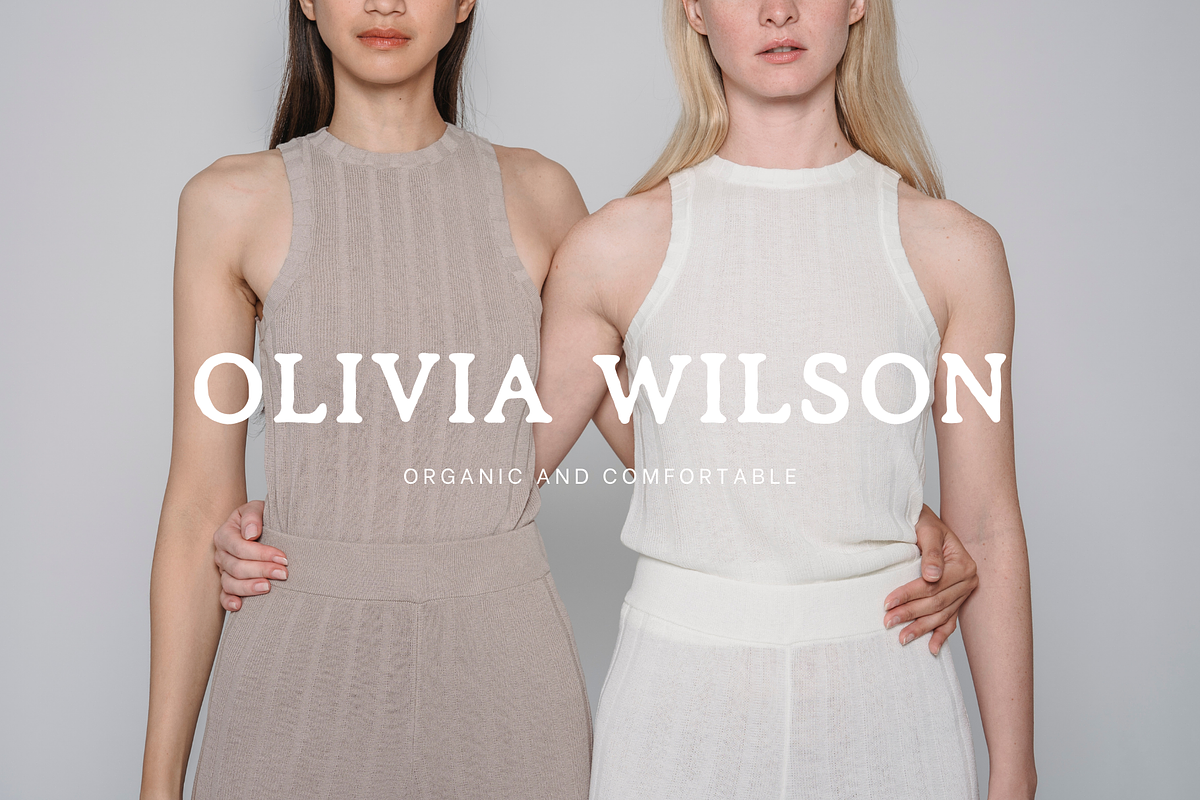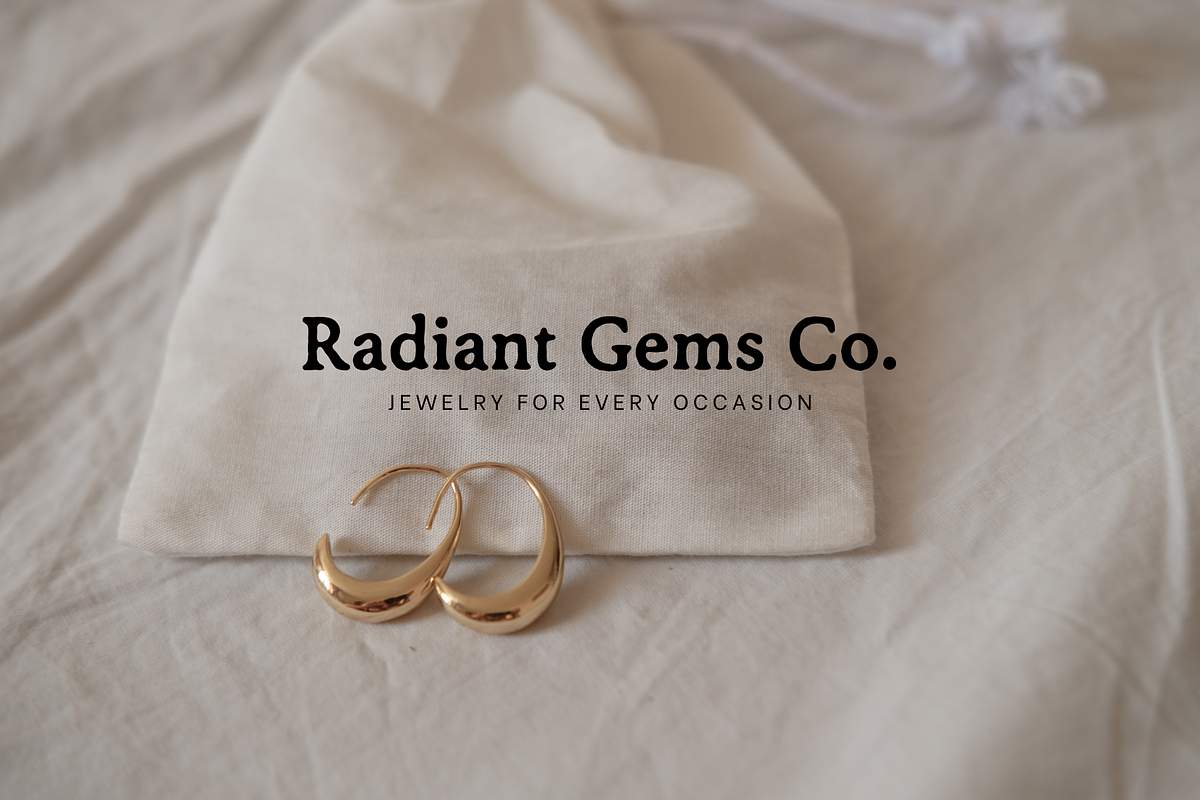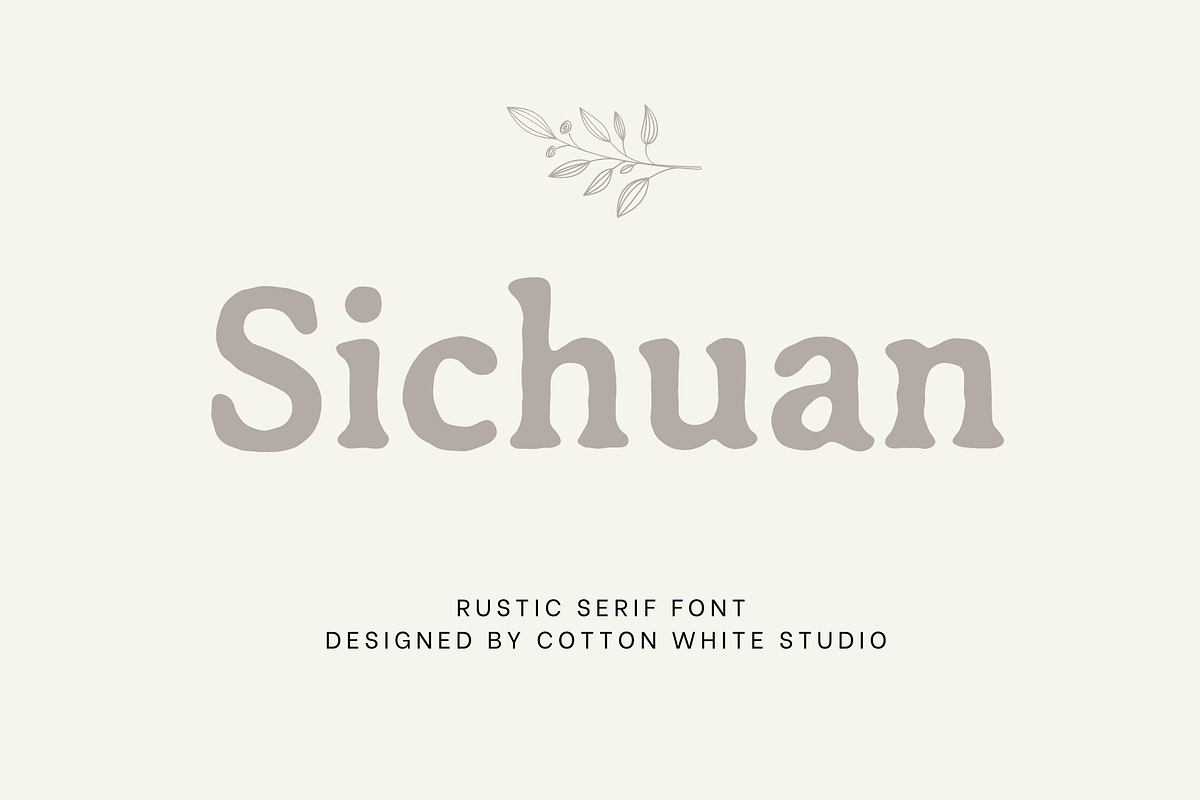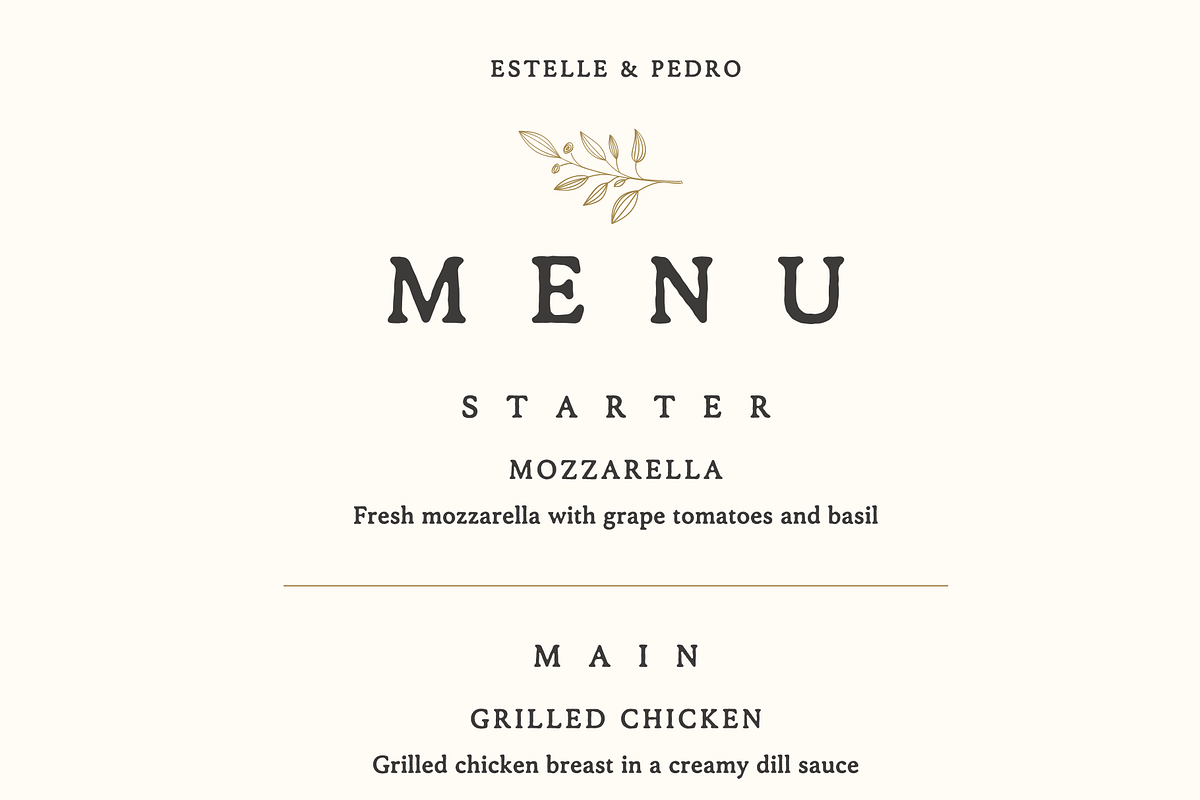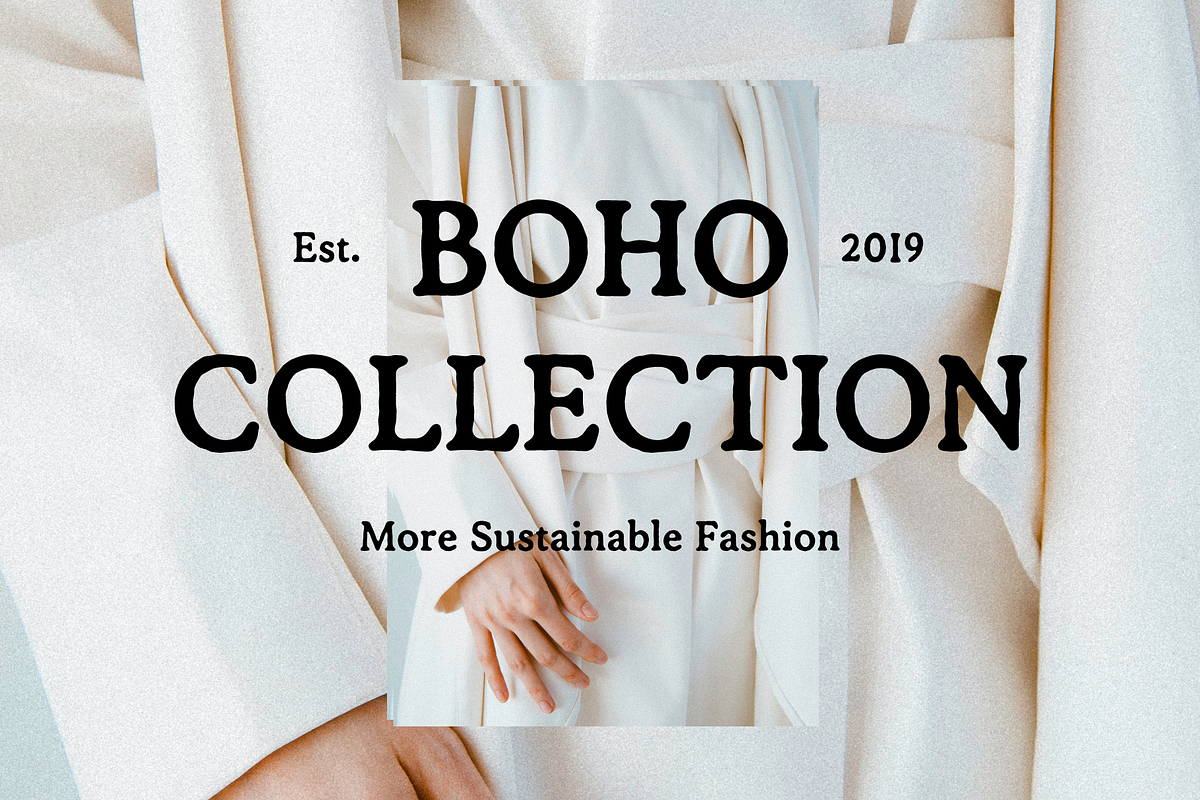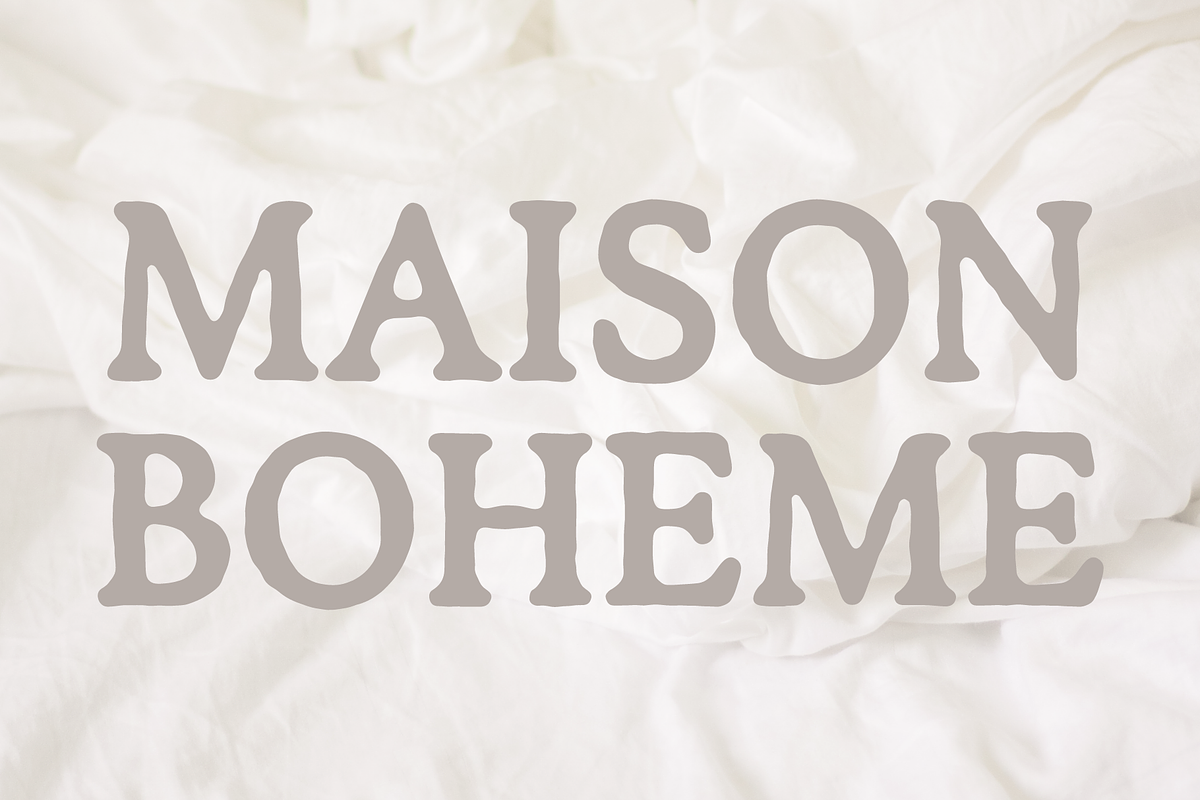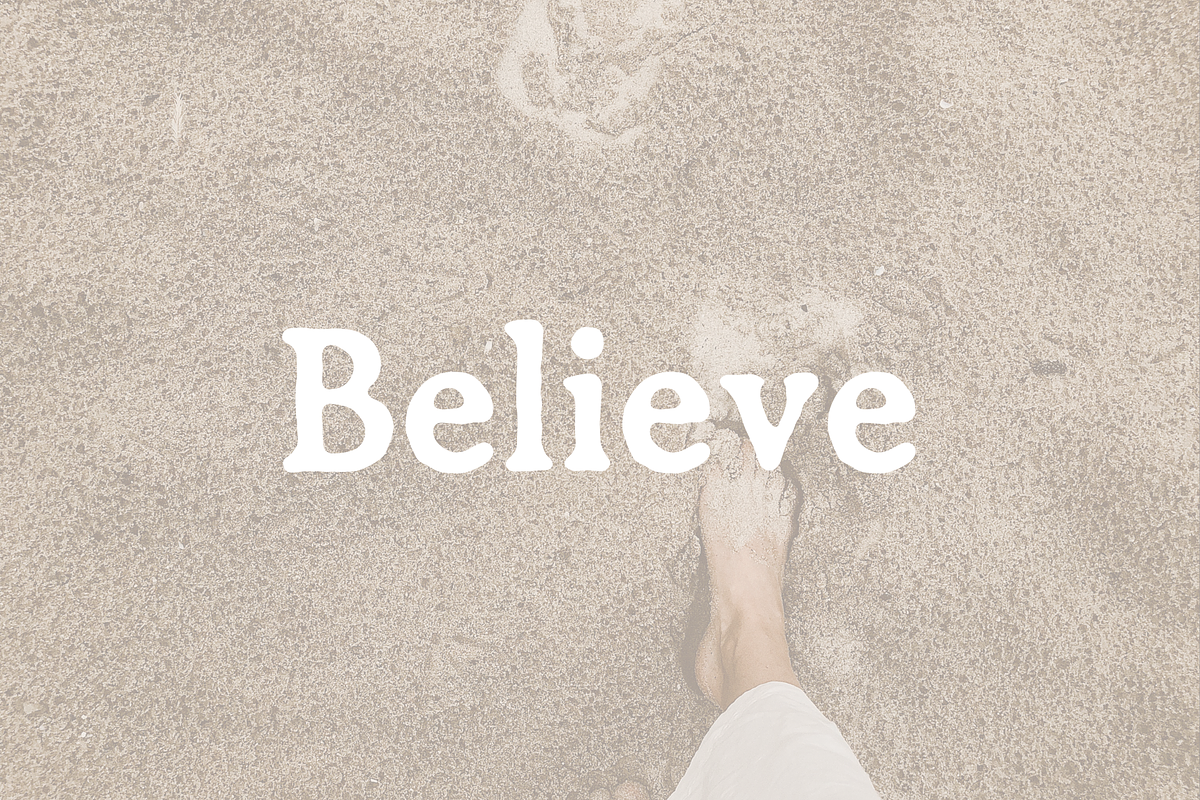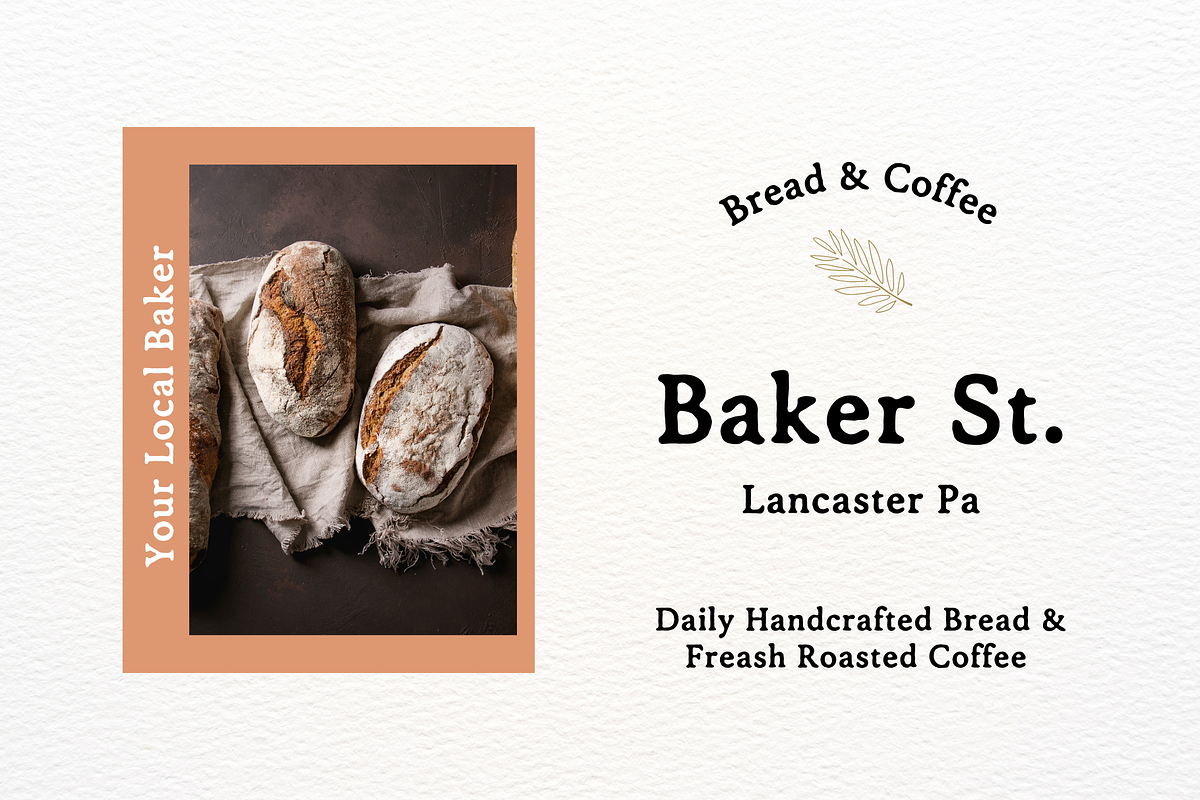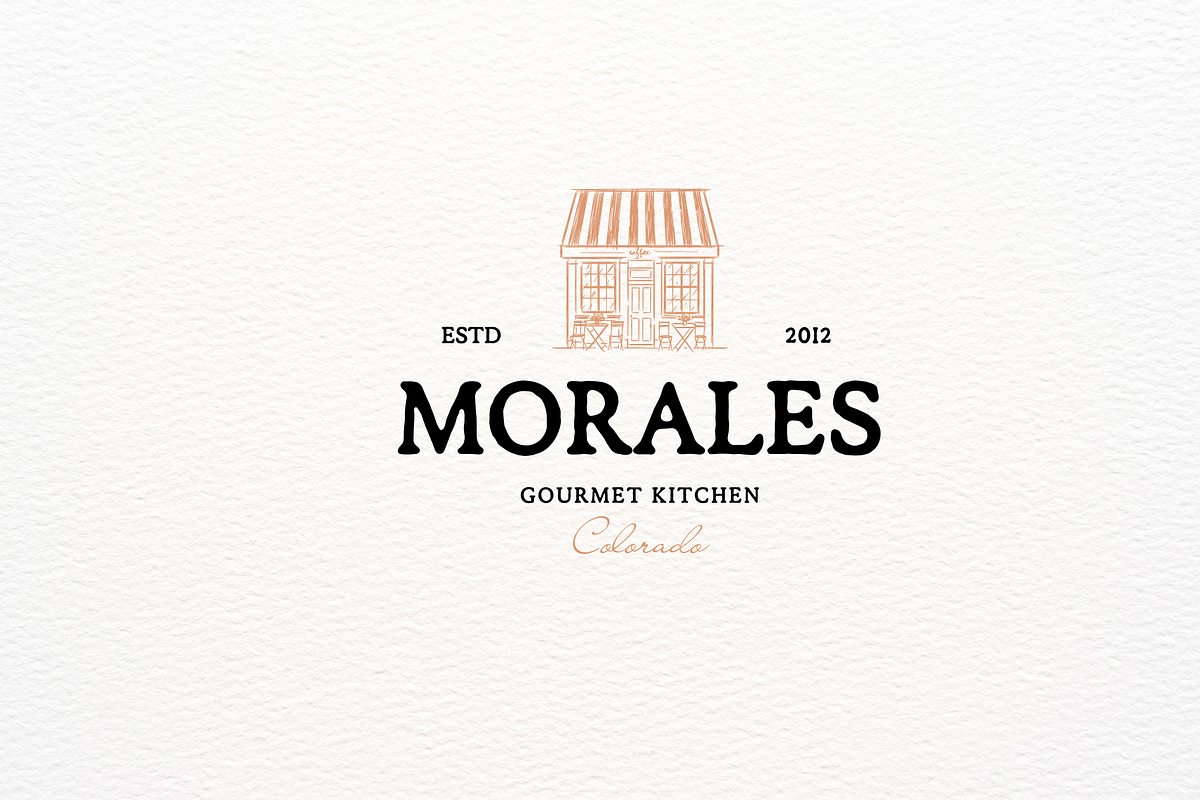
Sichuan
Sichuan is a handmade, imperfect serif font with warmth, character and with a stamp feeling. It's a versatile typeface with a soft, classic and vintage feel, perfect for branding and logo projects, blogs, instagram, fashion, photography, business cards, stationery and more...
Characters: a b c d e f g h i j k l m n o p q r s t u v w x y z A B C D E F G H I J K L M N O P Q R S T U V W X Y Z 0 1 2 3 4 5 6 7 8 9 . , : ; ! ? ' " ‘ ’ “ ” @ _ & # % * + - × ÷ = ~ / ( ) { } [ ] $ ¢ € £ ¥ © ® ™
À Á Â Ã Ä Å Æ Ç È É Ê Ë Ì Í Î Ï Ñ Ò Ó Ô Õ Ö Ø Œ Ù Ú Û Ü Ý Ÿ Þ Ð Ł Š Ž ¡ ¿ « » ‹ › ¤ • ° ± − ¶ § ‰ ⁄ – — à á â ã ä å æ ç è é ê ë ì í î ï ñ ò ó ô õ ö ø œ ù ú û ü ý ÿ þ ð ł š ž ß ı ^ ˆ ˇ ¨ ˜ ` ´ ¸ ‛ ‚ „ … | † ‡